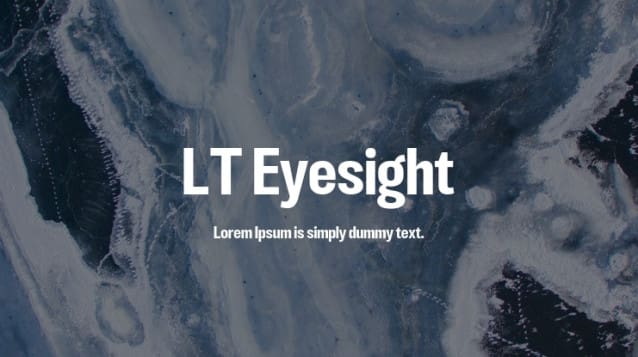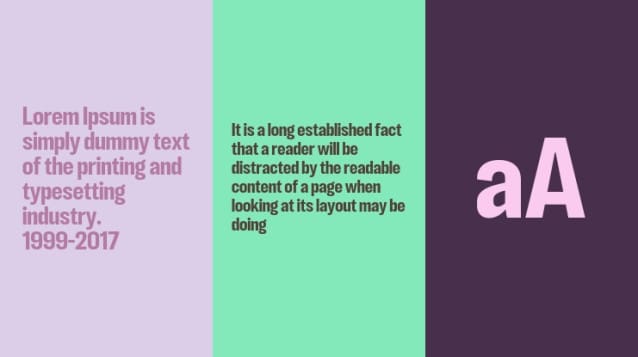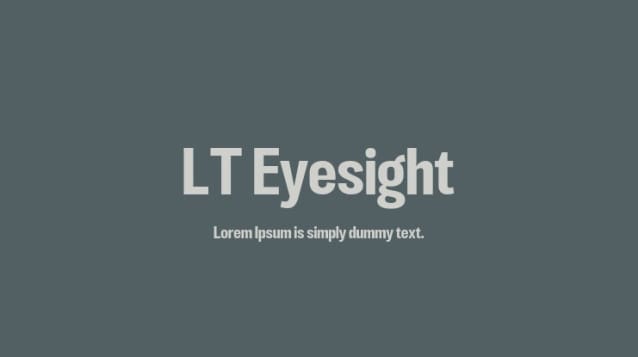
LT Eyesight Font
LT Eyesight Font, is a sans serif  stunning when combined or separately. This sans serif font style is legible and stunningly designed.